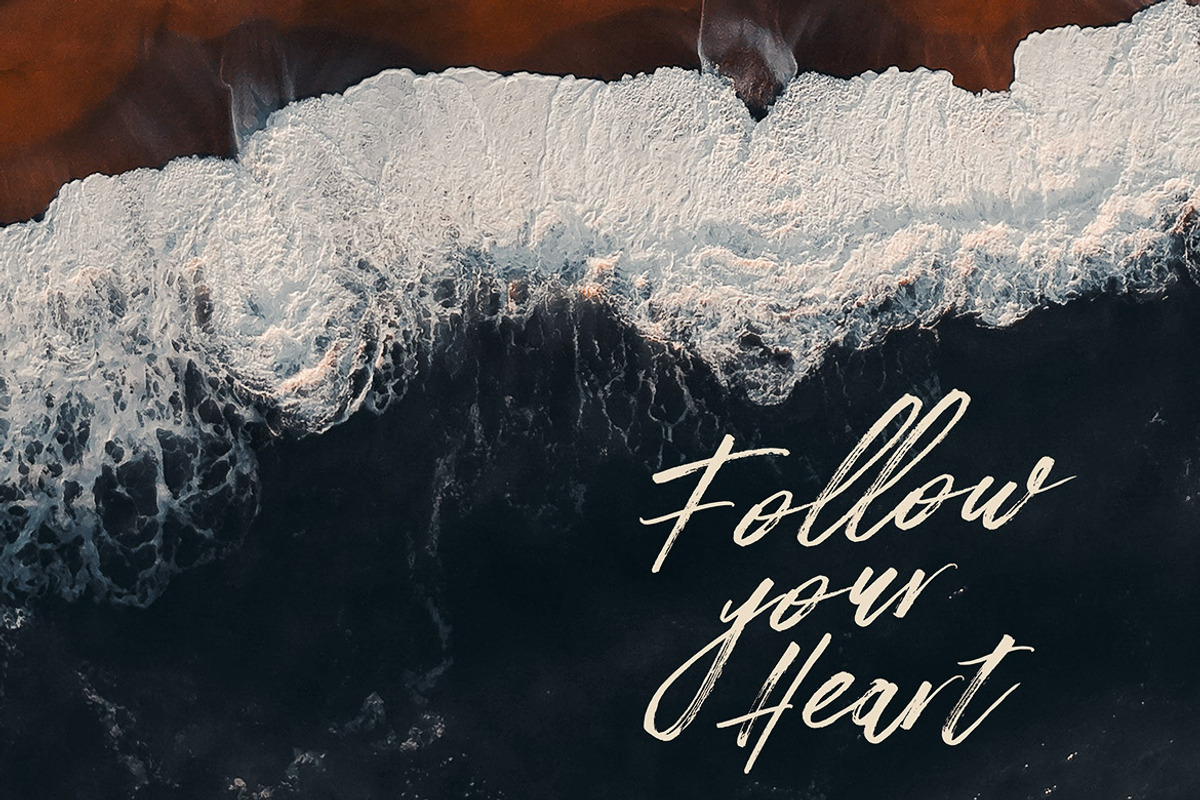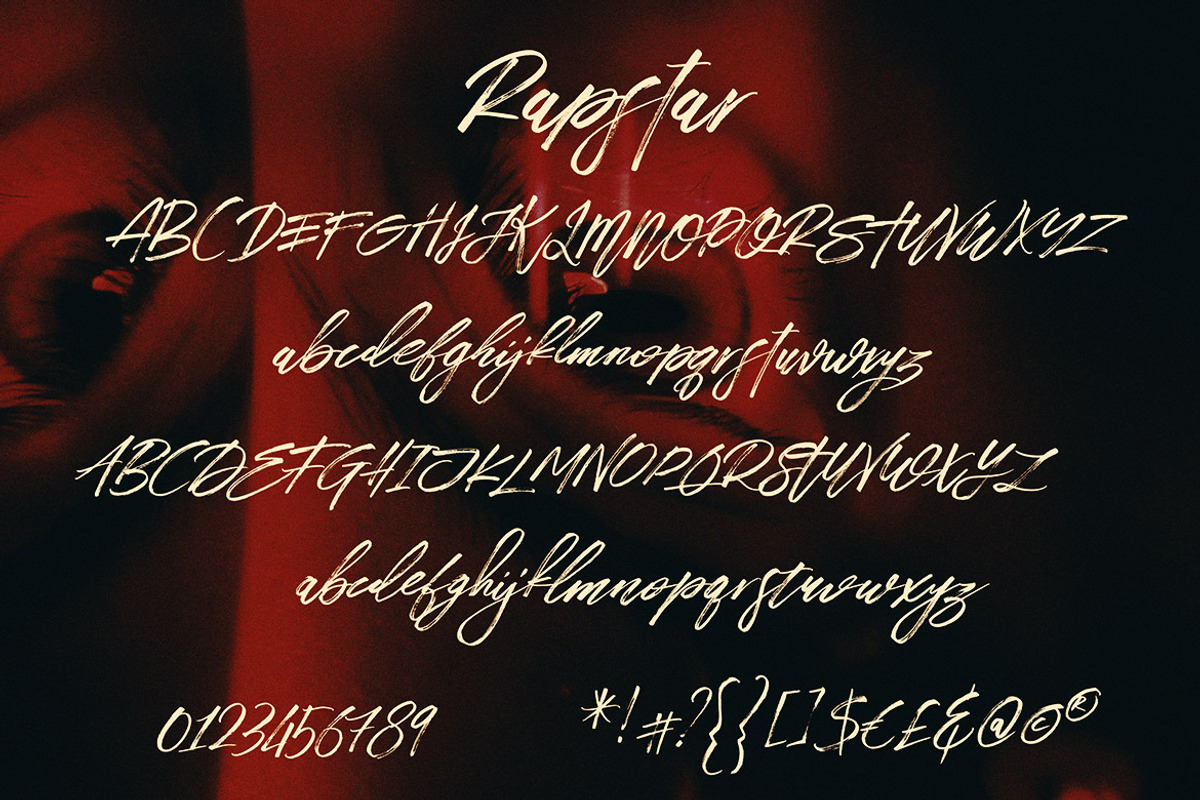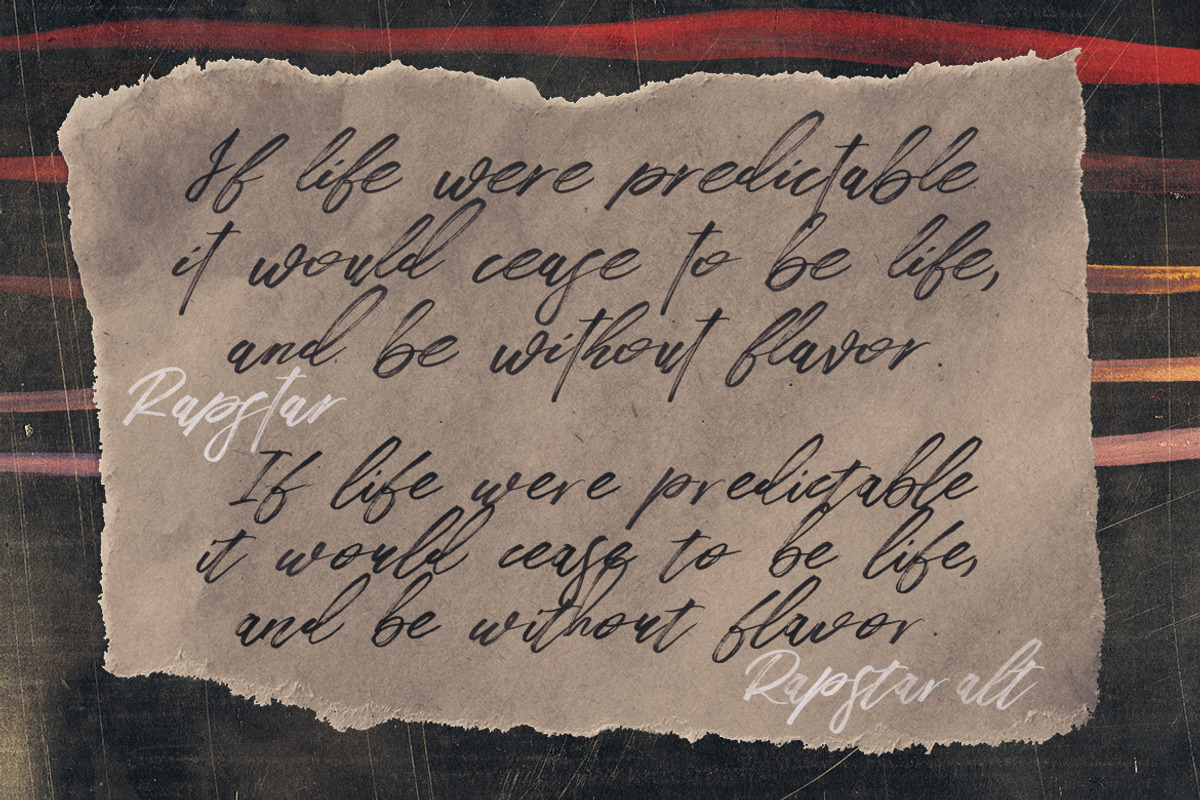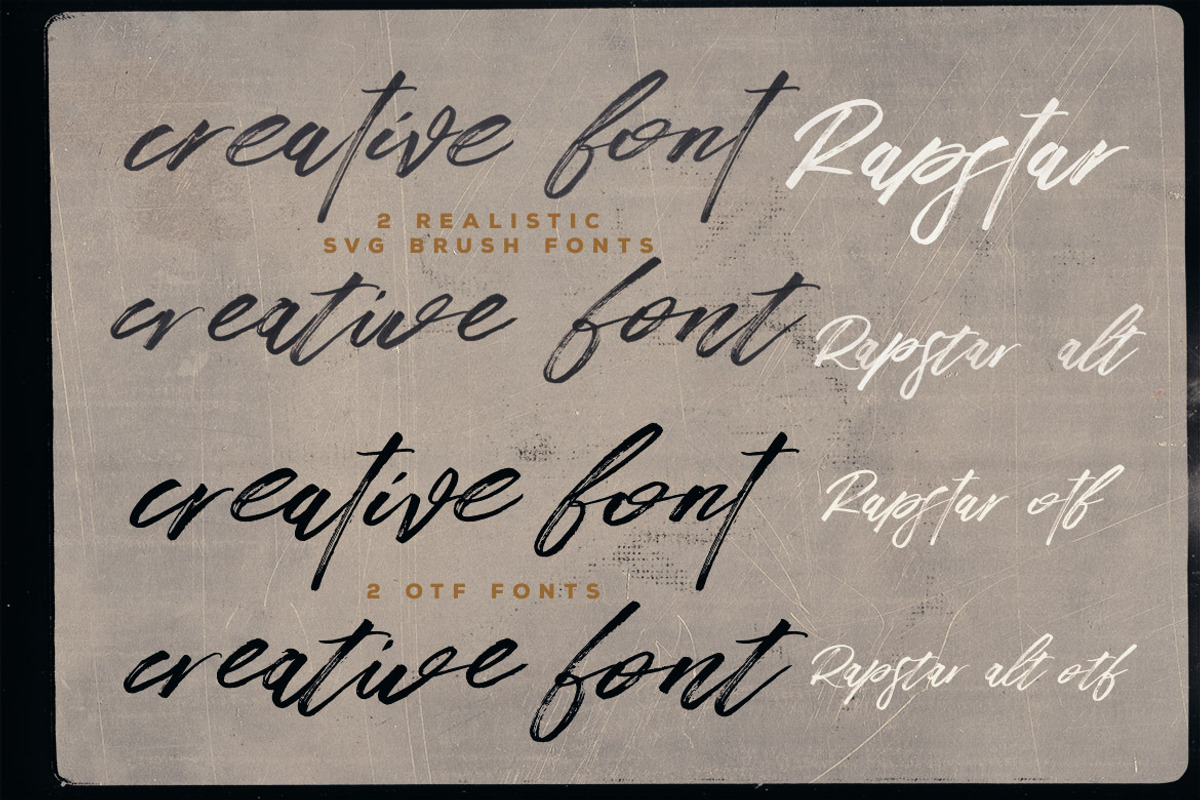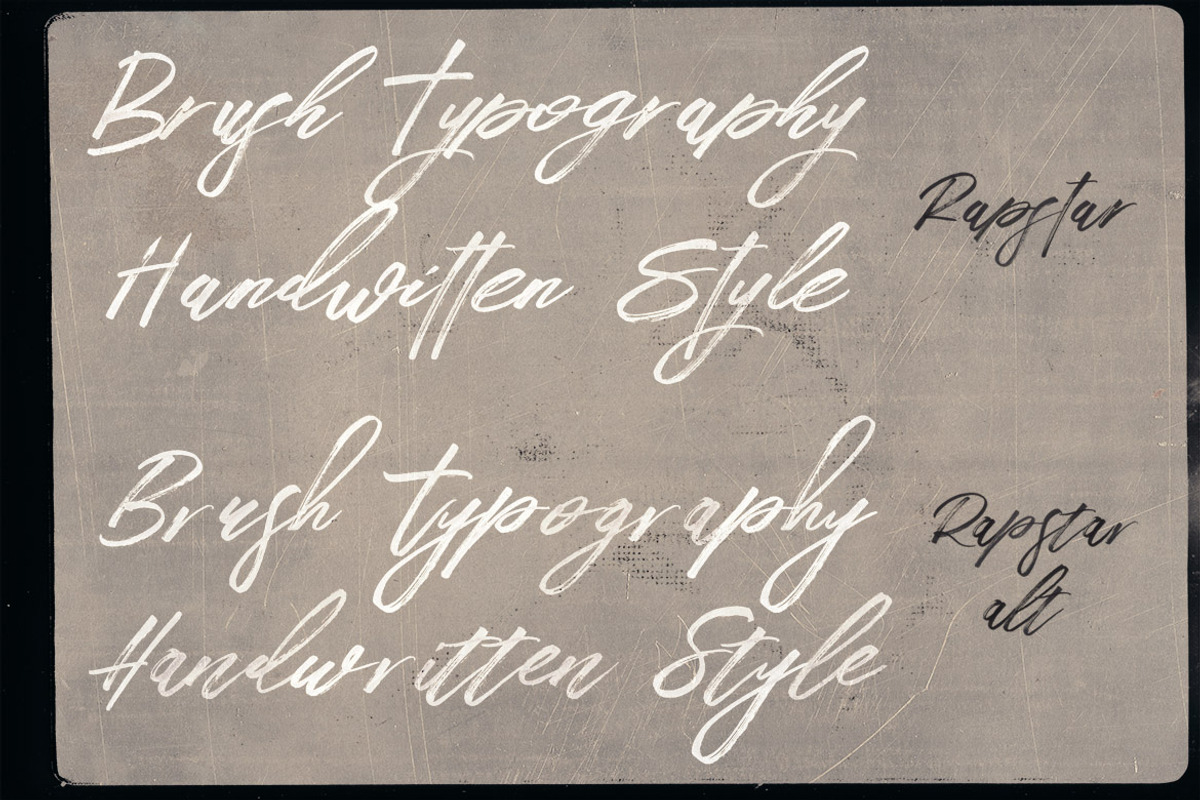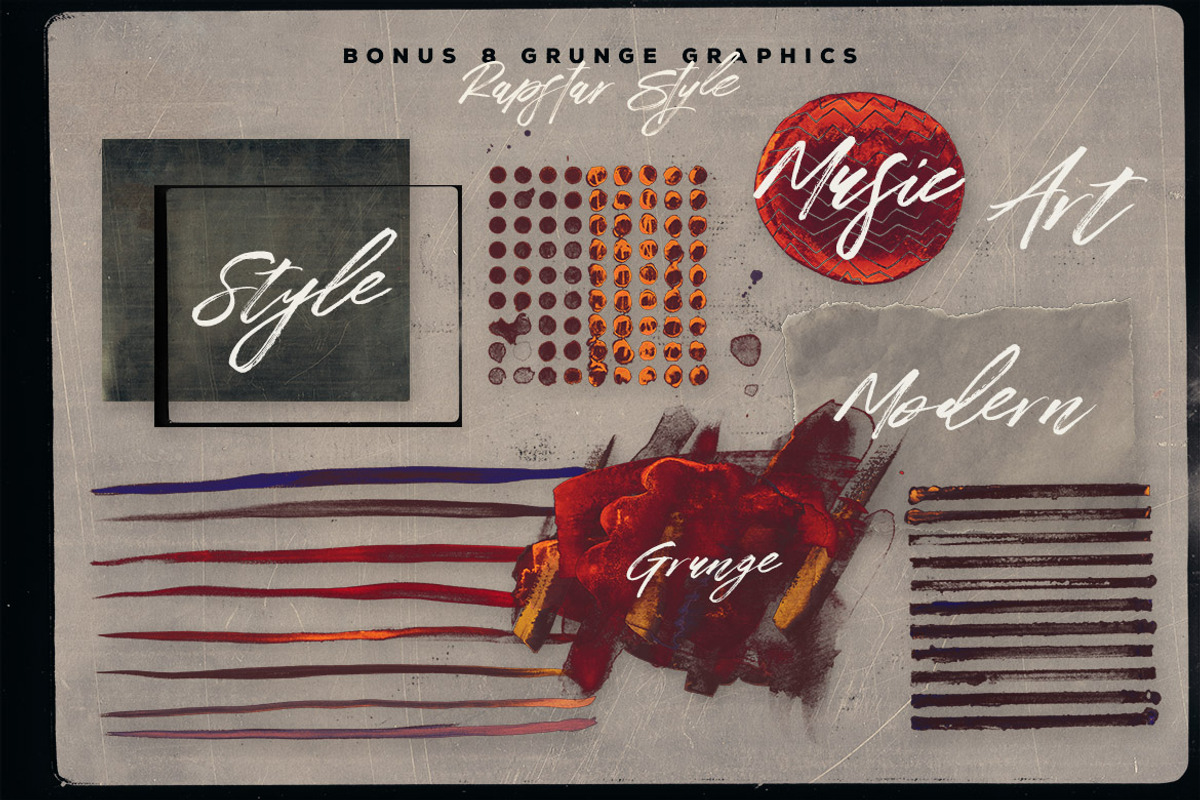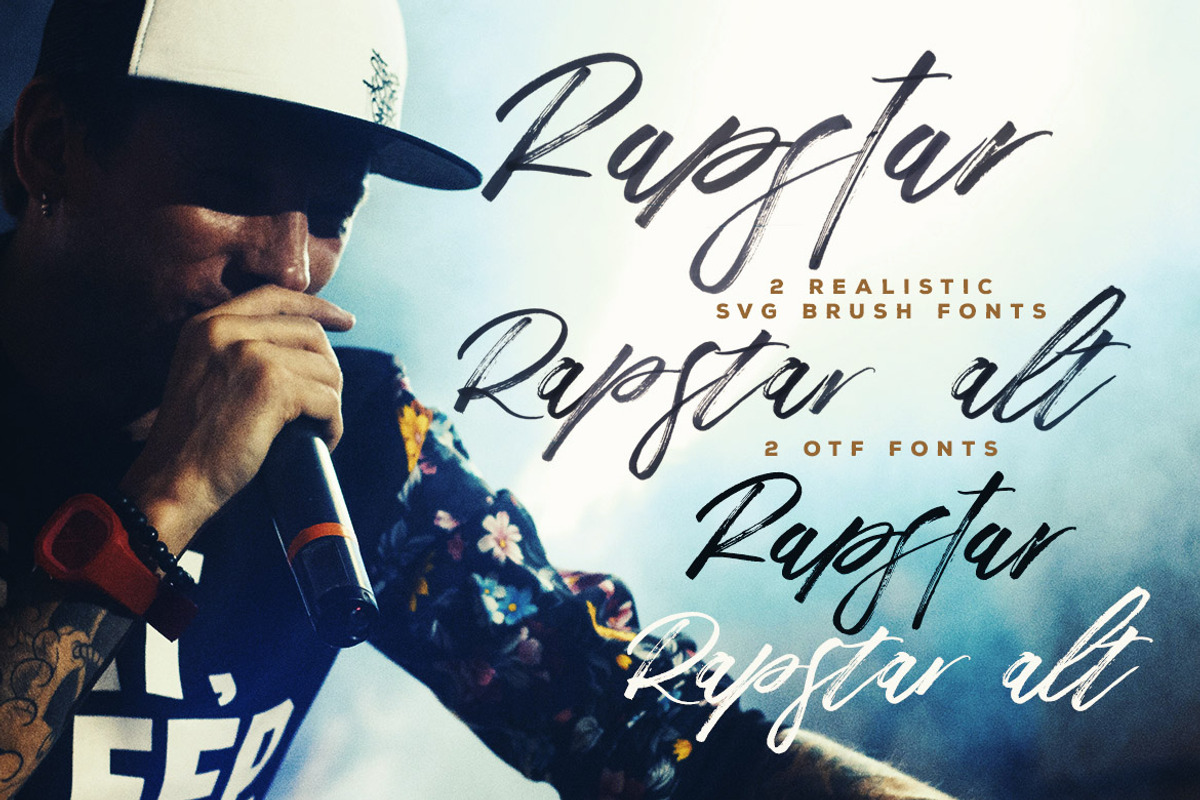
Rapstar Brush & SVG Font
Brush or grunge style script display font for your new projects. Great for grunge or artistic projects!
Rapstar Brush & SVG Font by Cruzine fits naturally into Branding, posters, packaging, typography.